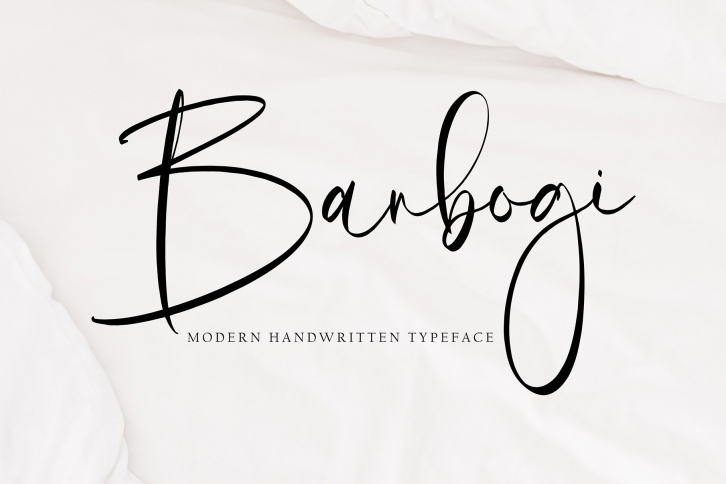
Banbogi is a gorgeous font that was realeased on August 7, 2022. The font can be used in many style contexts and design environments. Perfect for invitations, magazines, websites, logos, and more! It was designed by Pineungtype and the file size is 8.43 MB. Thanks for checking out this font!